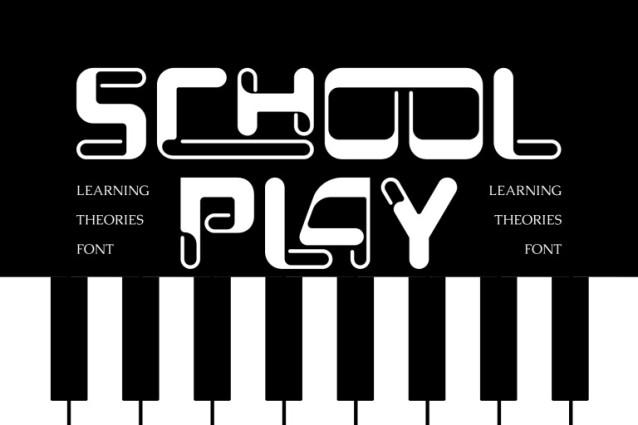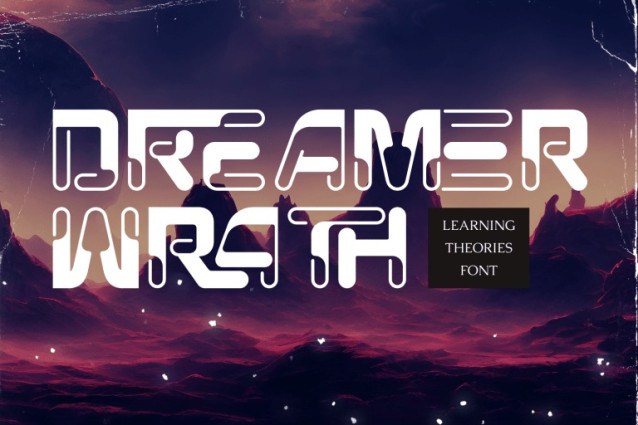
Learning Theories Font
LEARNING THEORIES – FUTURISTIC FONT – Futuristic Rounded Sans Display Font, a futuristic rounded sans serif display font built with a bold, geometric, and highly experimental design language. Featuring smooth rounded corners, modular letter construction, and distinctive cut-out details, this typeface delivers a strong sense of modern technology and digital aesthetics. The font’s clean sans serif foundation is combined with creative gaps, unconventional stroke connections, and carefully crafted ligatures, giving each letter a dynamic, tech-inspired character. Its balanced proportions and consistent stroke weight ensure excellent visual impact while maintaining clarity at display sizes.
🔤Features:
Uppercase & Lowercase Letters
Around 100 Special Ligatures & Alternates
Accented Characters for multilingual support
🔤About 100 ligatures combined with Stylistic Alternates Font:
AC AD AL AN AR AS AT AU AV BE CA CE CH CO CT DE DI EA EC ED EE EL EM EN EP ER ES ET FE FO FR GE HA HE HI HO IE IC IL IN IO IR IS IT JU KE LA LE LI LL LO LY MA ME MI NC ND NE NG NO NT NS OC OF OM ON OO OP OR OT OU OW PA PR RA RD RE RI RO RS RT SE SH SI SO SS ST TA TE TH TI TO TR TT UM UN UR VE WI WO